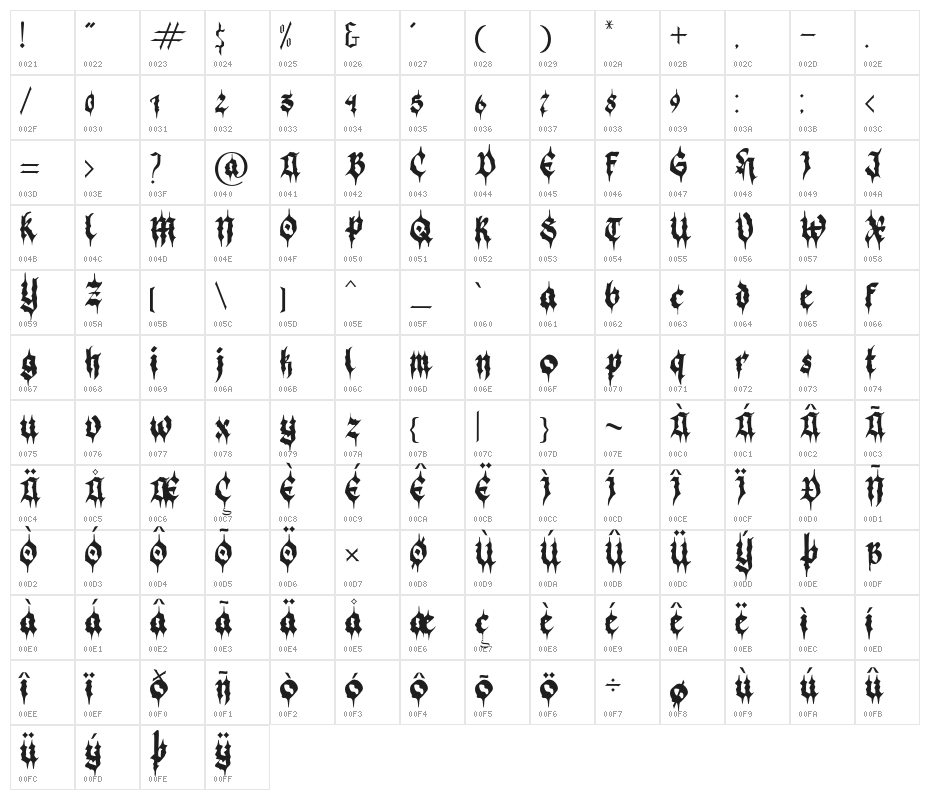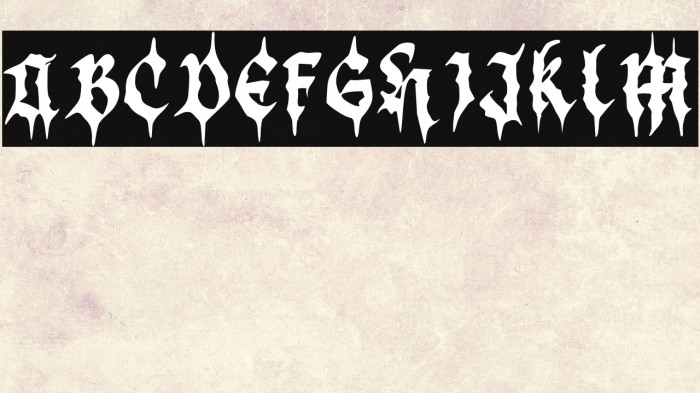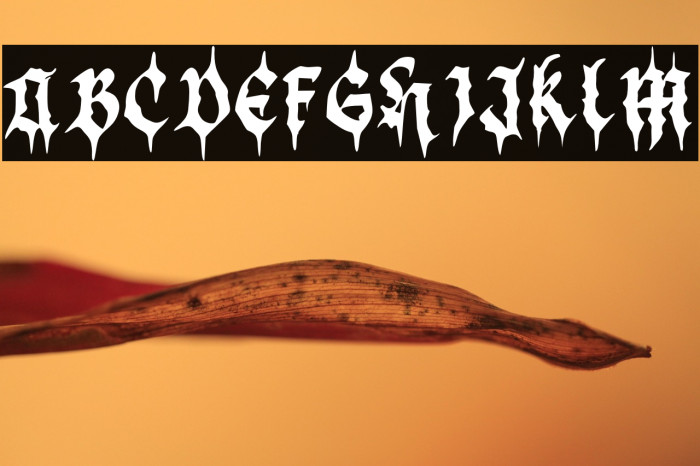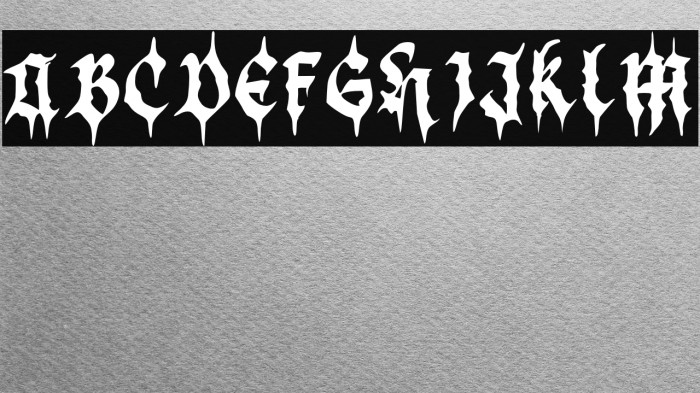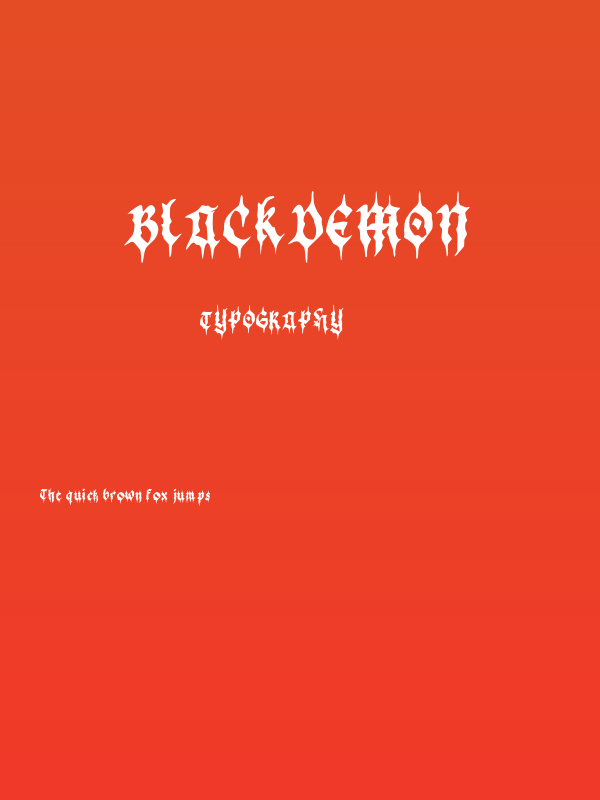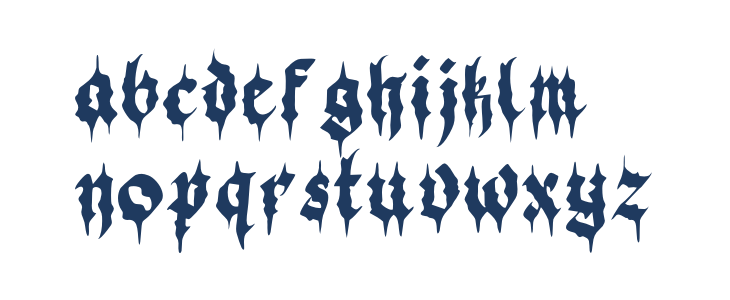
BlackDemon Font
BlackDemon Description
This font features a striking and bold design with sharp, angular edges and a gothic aesthetic. The characters are highly stylized, with pointed serifs and dramatic flourishes that give it a menacing and intense appearance. The uppercase and lowercase letters maintain a consistent style, while the numbers and special characters complement the overall theme. The font's unique design makes it stand out, ideal for projects that require a dark, edgy, or medieval vibe.
| Overall Style | Gothic, Decorative |
| Proposed Projects | Ideal for horror-themed posters, gothic event invitations, album covers, and video game titles. |